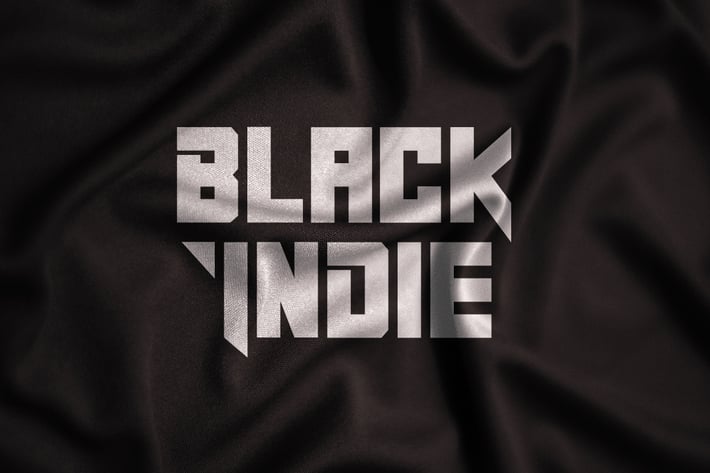
Black Indie - Display Font
Black Indie is a bold and authentic display font. The font is suitable for any branding project like logo, t-shirt printing and many more.
outstanding in a wide range of contexts.